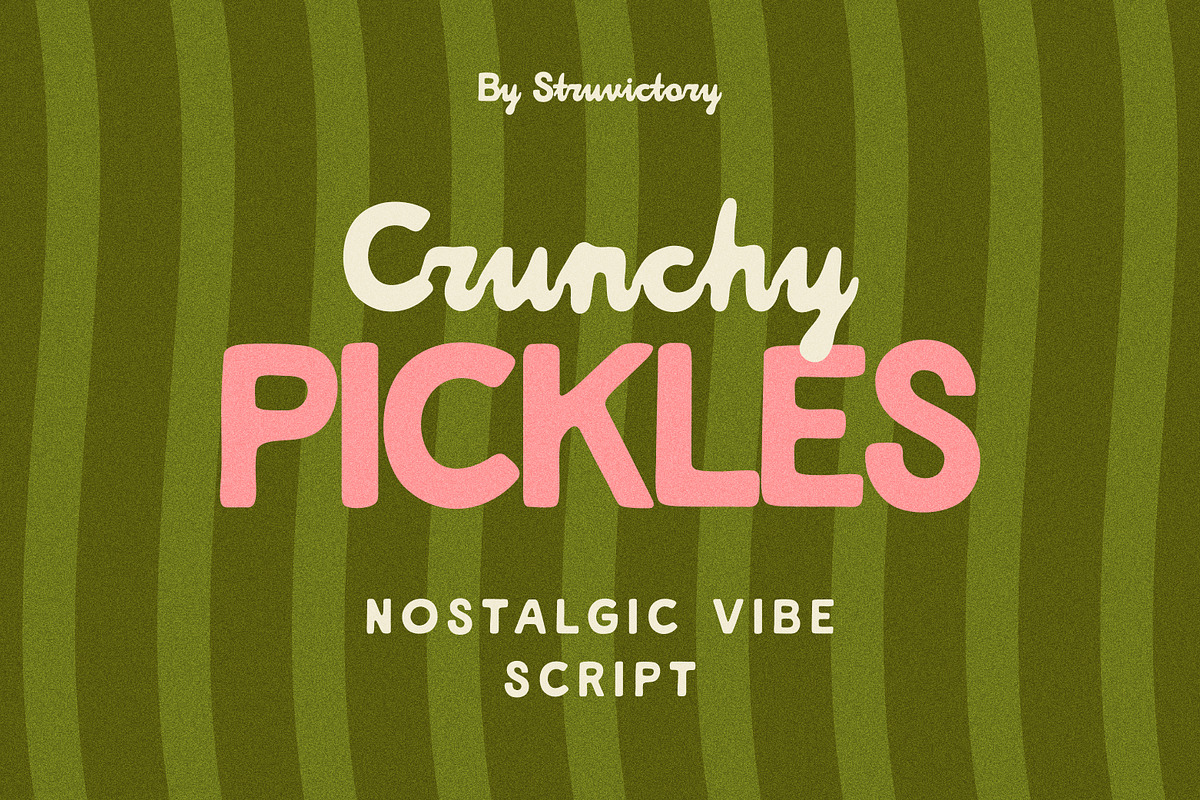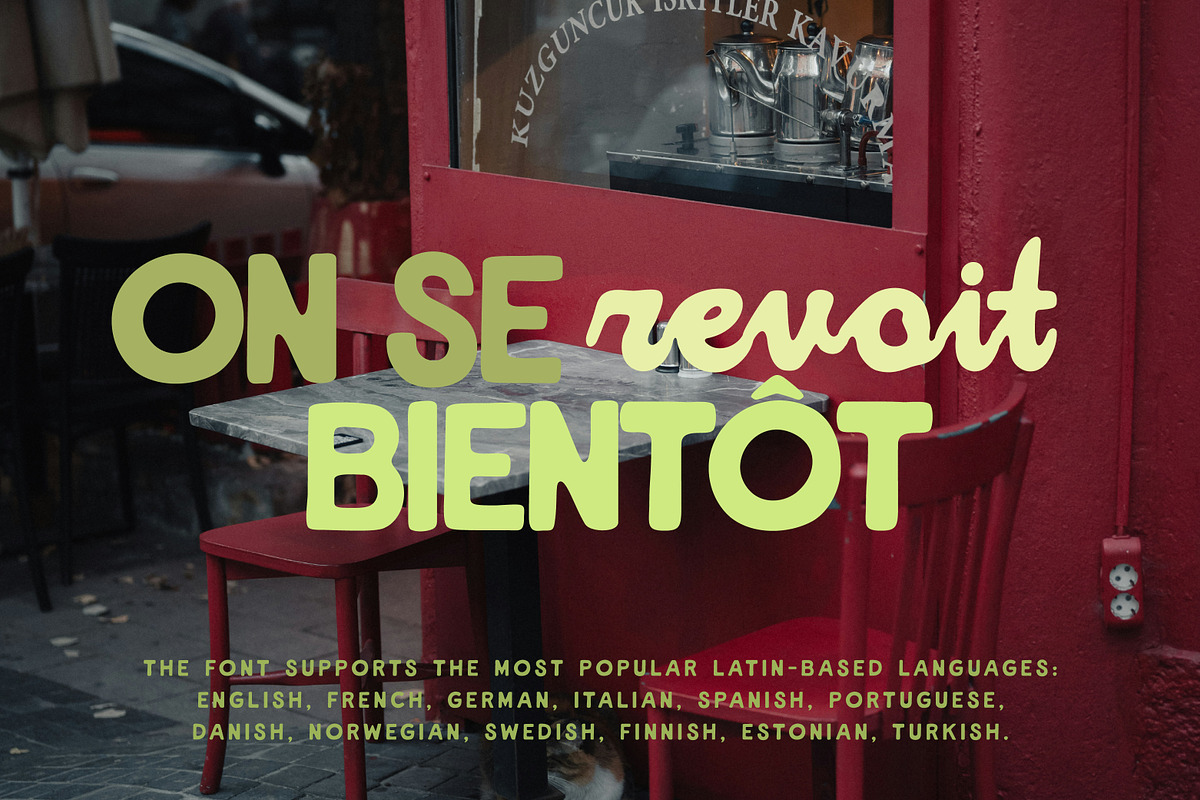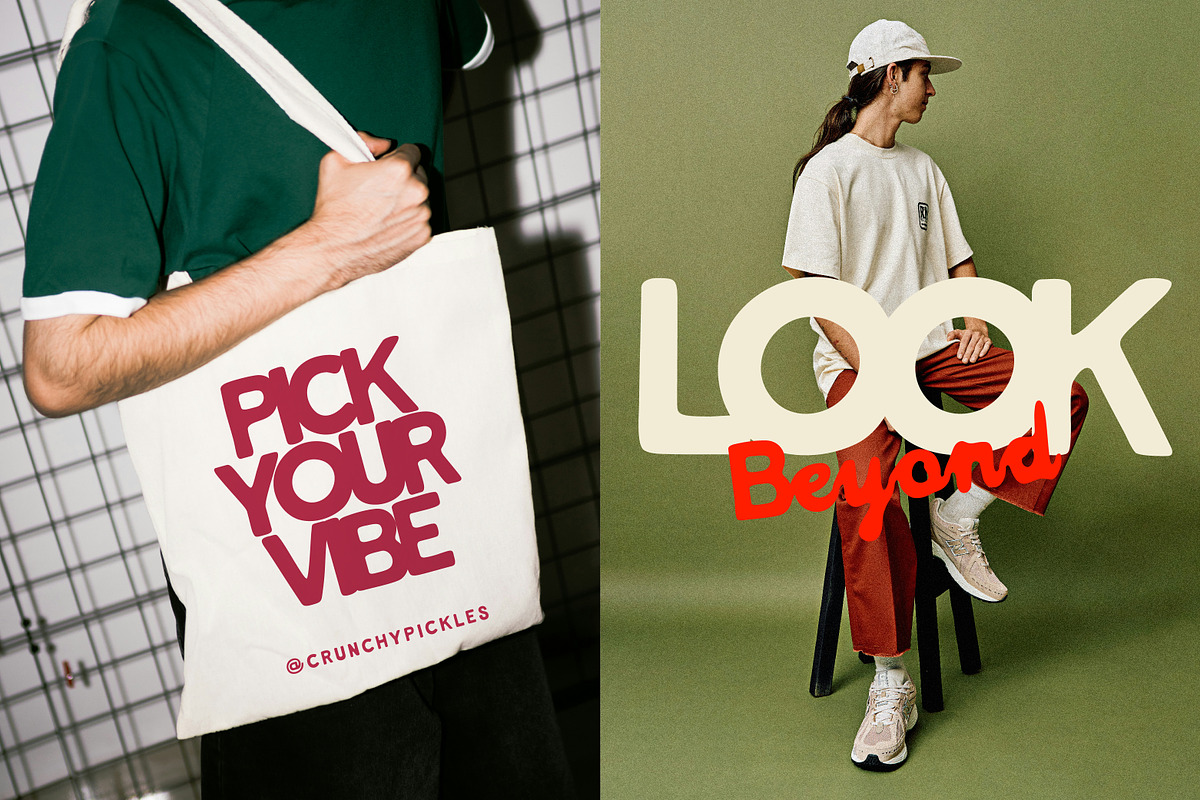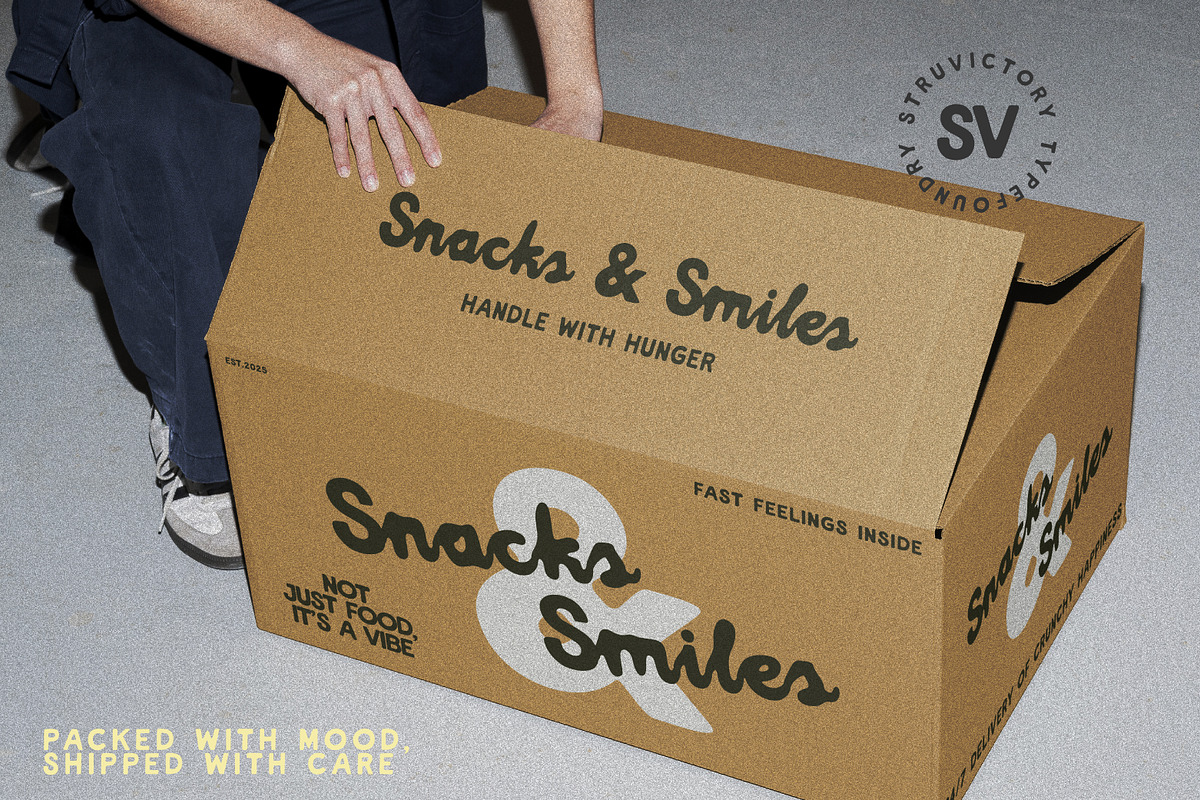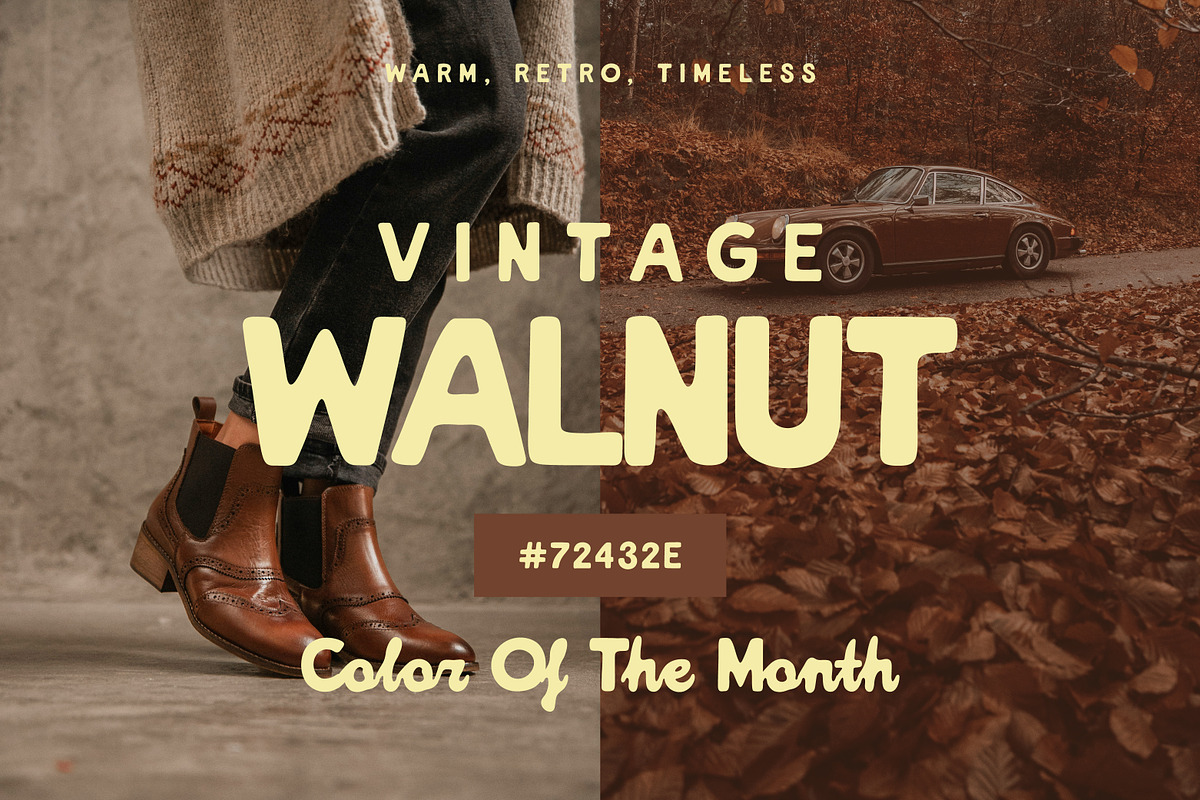
CrunchyPickles Nostalgic Vibe Script
Crunchy Pickles is a playful handwritten font with two matching styles: a bold uppercase sans and a soft handwritten script designed in lowercase. This contrast creates a dynamic, trendy look that’s full of personality — bold but friendly, fun but clean. Perfect for eye-catching branding, social posts, posters, clothing tags, stickers, menu design and anything that needs a bit of charm and attitude.